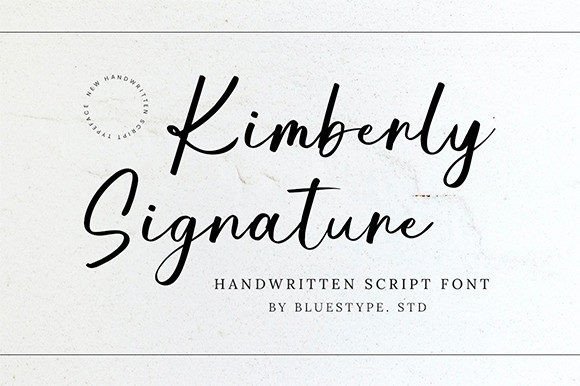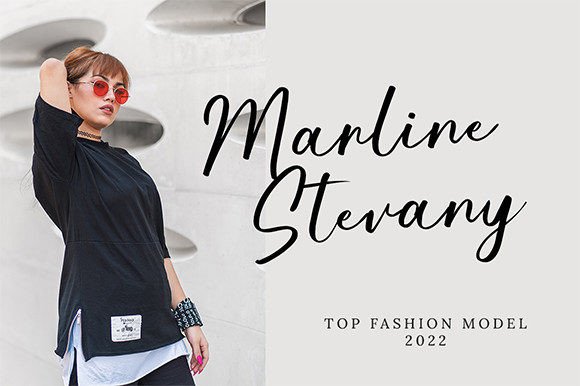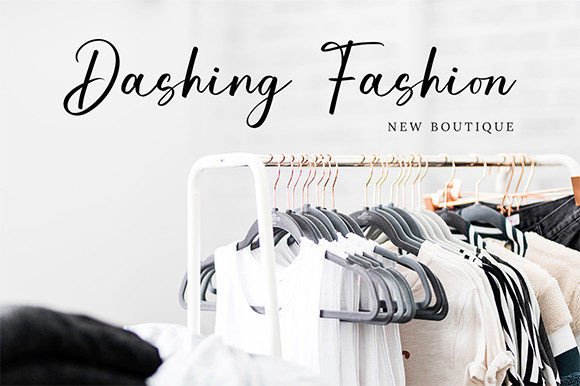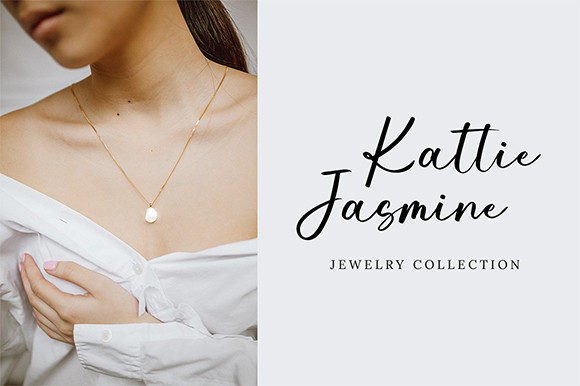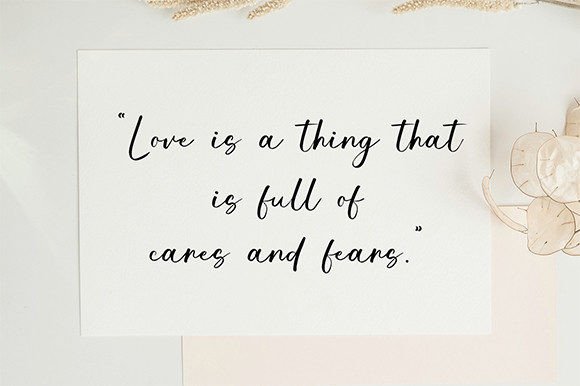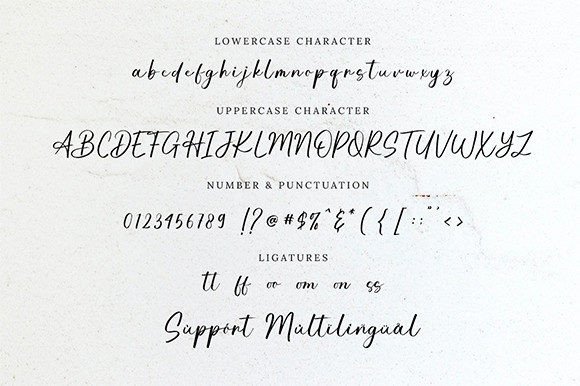
The Perfect Signature: Elevating Your Design with the Kimberly Signature Font
There’s nothing quite like the feeling of creating something from scratch – a new project, a fresh idea, or even a simple signature. As designers, we’ve all been there: staring at a blank canvas, searching for the perfect font to bring our vision to life. And that’s where the Kimberly Signature Font comes in – a beautiful, casual handwritten font that adds a touch of joy and modernity to any design.
Whether you’re working on a personal project or a client’s logo, the Kimberly Signature Font is a valuable addition to your design toolkit. Its stylish and approachable look makes it perfect for a variety of design ideas, from wedding invitations to social media graphics. With the Kimberly Signature Font, you can elevate your designs and leave a lasting impression on your audience.
Kimberly Signature Font Key Features
- Unique Characteristics: The Kimberly Signature Font features a elegant, cursive script with intricate details and flourishes, making it perfect for signature designs, invitations, and other creative projects.
Kimberly Signature Font Review
I recently had the chance to work with the Kimberly Signature Font, and I must say it’s been an interesting experience. Here’s my honest review.
- Unique and elegant design: The Kimberly Signature Font has a distinctive look that’s perfect for adding a touch of sophistication to your designs.
- High-quality glyphs: The font includes a wide range of characters, including international glyphs, making it suitable for a variety of projects.
- Easy to use: The font is highly legible, even at small sizes, making it a great choice for body text and titles.
- Limited flexibility: The font is a single weight, which may limit its use in designs that require multiple weights or styles.
- No supporting fonts: The font doesn’t come with a matching italic or bold version, which may require additional font purchases or workarounds.
Overall, I think the Kimberly Signature Font is a great choice for designers who want to add a touch of elegance to their projects. However, its limitations may make it less suitable for more complex designs or projects with tight budgets.
Getting the Most Out of Kimberly Signature Font
To get the most out of Kimberly Signature Font, try the following tips:
Use it in conjunction with other elegant fonts for a sophisticated look.
Experiment with different font sizes and styles to add emphasis to your text.
Pair it with bold or italic text for added visual interest.
Kimberly Signature Font is ideal for:
Business cards and letterheads.
Branding and marketing materials.
Alternatives to Kimberly Signature Font for Designers
The Great Vibes Font is a modern, elegant script font that is perfect for creating a luxurious and sophisticated look. It is ideal for use in wedding invitations, luxury branding, and high-end packaging.
Compared to Kimberly Signature Font, Great Vibes Font has a more refined and polished feel, making it suitable for premium brands and products. It lacks the whimsical touch of Kimberly Signature Font, but its elegance makes up for it.
Carolyna Pro is a beautiful, handwritten font that is perfect for creating a personal and intimate feel. It is ideal for use in wedding stationery, invitations, and other personal branding materials.